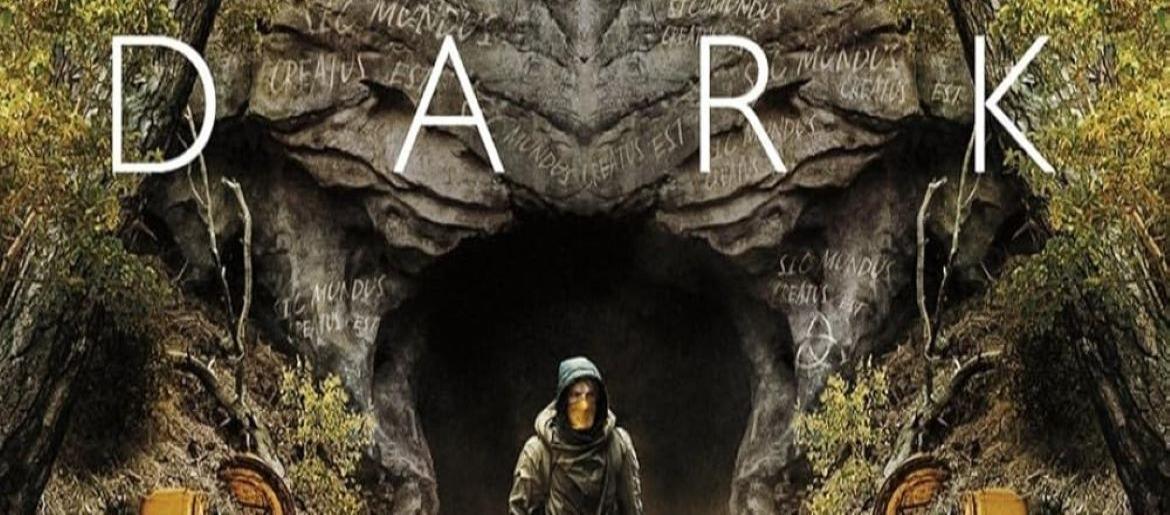
DARK Font
The DARK Font captures the unsettling, atmospheric tone of the series with its stark, minimalist letterforms. The typography is primarily based on Gill Sans, a humanist sans-serif typeface designed by Eric Gill and released by Monotype. Known for its clean geometry and timeless structure, Gill Sans brings a cold, clinical feel that perfectly mirrors the show’s themes of time loops, existential dread, and hidden family secrets.
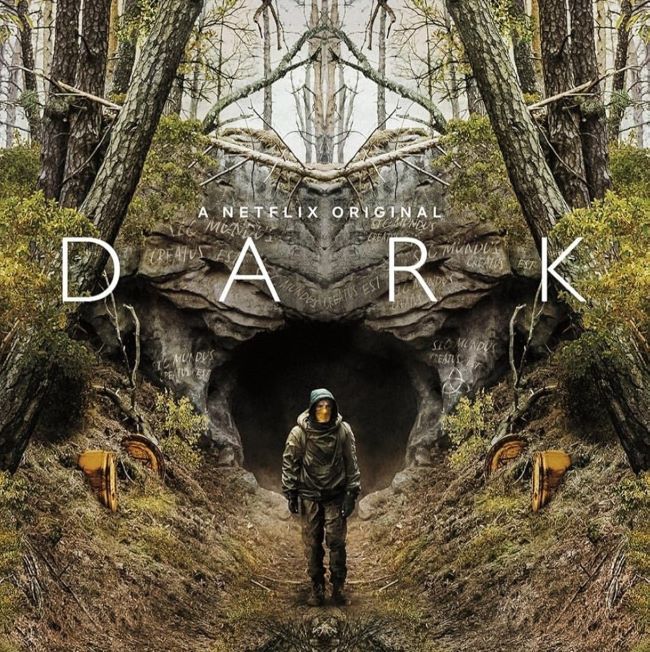
About DARK
DARK is a German sci-fi thriller series that premiered in 2017, starring Louis Hofmann, Lisa Vicari, Karoline Eichhorn, and Maja Schöne. The story unfolds in the small town of Winden, where the disappearance of local children reveals a supernatural mystery spanning multiple generations. Blending time travel, family drama, and philosophical themes, the series is celebrated for its intricate storytelling, haunting atmosphere, and breathtaking narrative structure. DARK remains one of the most acclaimed and mind-bending sci-fi series ever created.